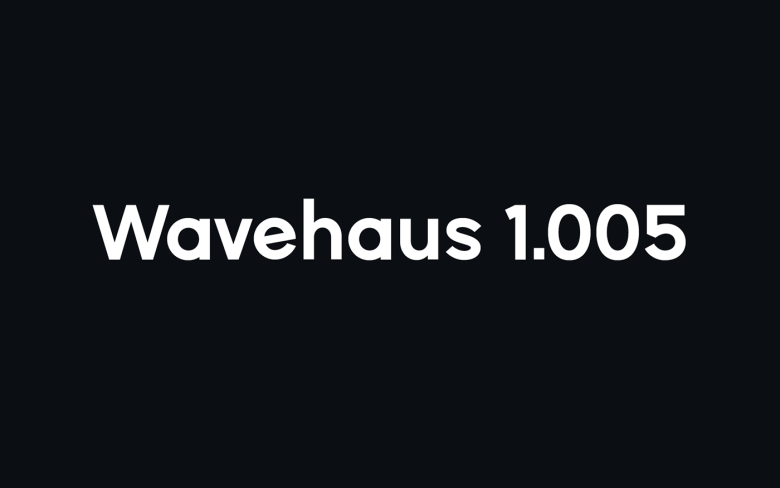
Wavehaus Font Family
Continue to be a design of Graham Paterson, a professional designer from Cape Town, South Africa. We have known Umhlanga Font, which is his product. And today introduced Wavehaus Font Family!. Wavehaus designed and shared by Graham Paterson. Geometric Sans Serif font family with 6 weights including a thin, light, book, semibold, bold and extra bold. Includes uppercase and lowercase characters, numerals and most common other characters.